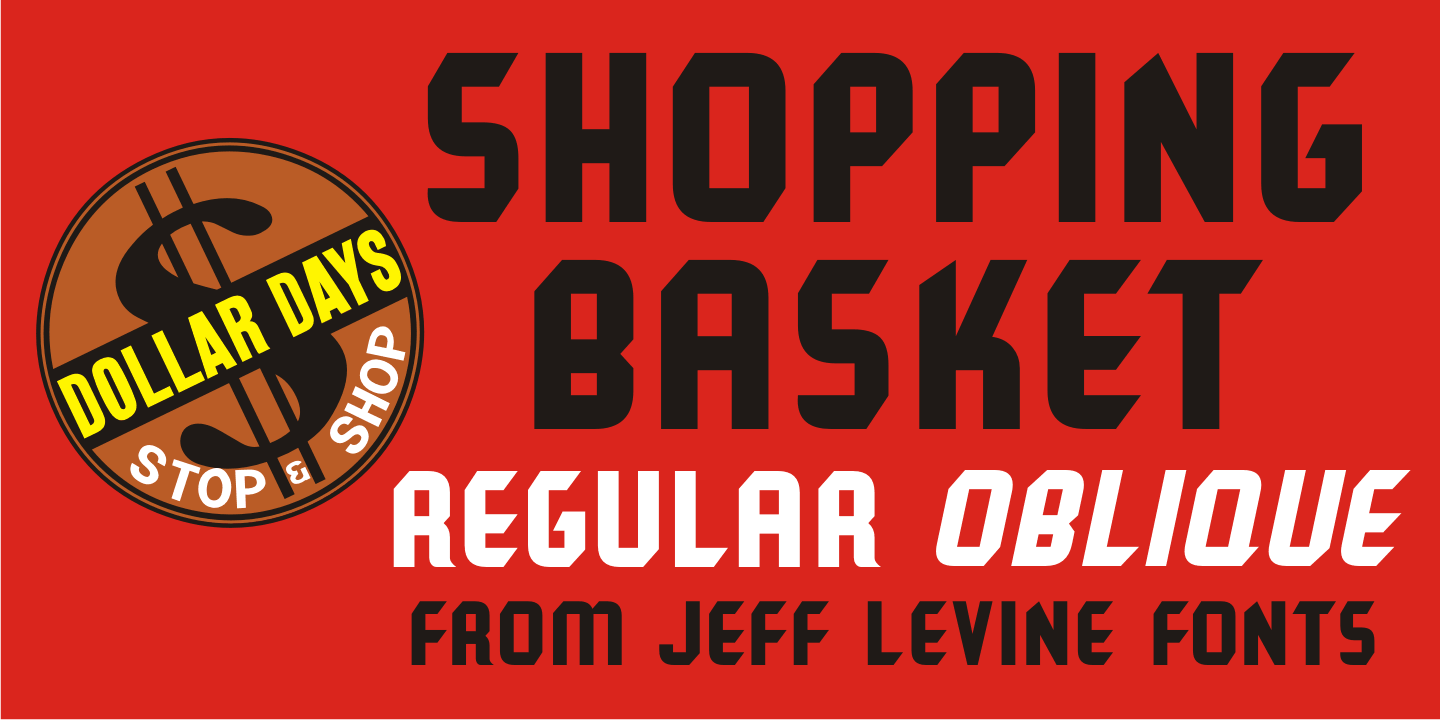
Shopping Basket Jnl Font . Shopping basket jnl byjeff levine. Onlinewebfonts.com is internet most popular font online download website,offers more than 8,000,000 desktop and web font products for. The cover of the vintage sheet music for. Onlinewebfonts.com is internet most popular font online download website,offers more than 8,000,000 desktop and web font products. Thousands of designers (famous or not) use the image font detection system to find a font or similar free fonts from an image. Designed by jeff levine, shopping basket jnl is a display and display sans font family.
Shopping basket jnl byjeff levine. Onlinewebfonts.com is internet most popular font online download website,offers more than 8,000,000 desktop and web font products. Thousands of designers (famous or not) use the image font detection system to find a font or similar free fonts from an image. Onlinewebfonts.com is internet most popular font online download website,offers more than 8,000,000 desktop and web font products for. The cover of the vintage sheet music for. Designed by jeff levine, shopping basket jnl is a display and display sans font family.
Shopping Basket Jnl Font Onlinewebfonts.com is internet most popular font online download website,offers more than 8,000,000 desktop and web font products for. Designed by jeff levine, shopping basket jnl is a display and display sans font family. Onlinewebfonts.com is internet most popular font online download website,offers more than 8,000,000 desktop and web font products. Thousands of designers (famous or not) use the image font detection system to find a font or similar free fonts from an image. The cover of the vintage sheet music for. Onlinewebfonts.com is internet most popular font online download website,offers more than 8,000,000 desktop and web font products for. Shopping basket jnl byjeff levine.